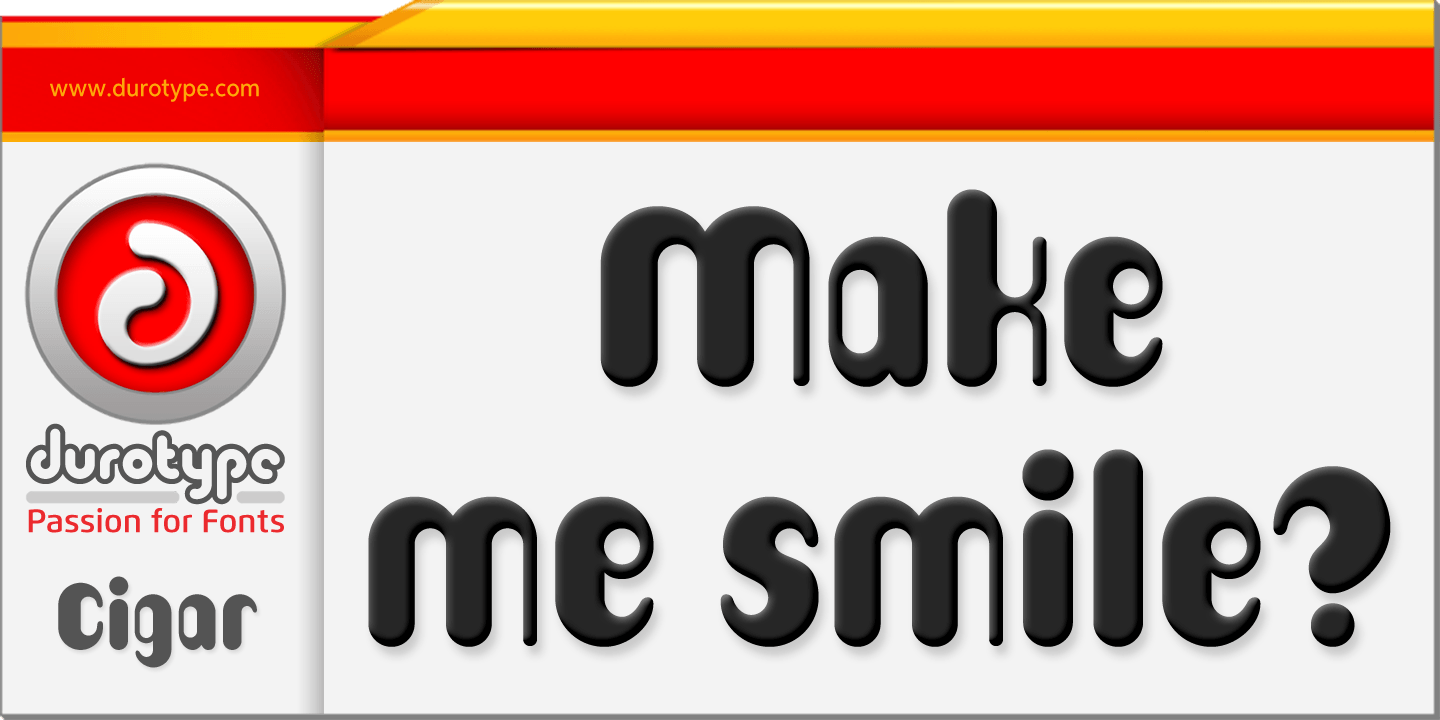
Cigar is a novelty and retro font family. This typeface has three styles and was published by Durotype.
Cigar is a revival of a 1970s and 1980s typeface called Cucumber or Nassel Black or Scanner. It has been carefully redrawn and expanded into a full-featured OpenType font. Cigar Octo and Cigar Quarto are new angular reinterpretations of Cigar. In Cigar Octo, most round shapes have been replaced by octagonal shapes. In Cigar Quarto, most round shapes have been replaced by rectangular shapes.
Use Cigar to get attention. Use it for headlines, advertisements, magazines, brochures, book covers, corporate design, presentations, websites, signs, event announcements, and for other things that need attention.